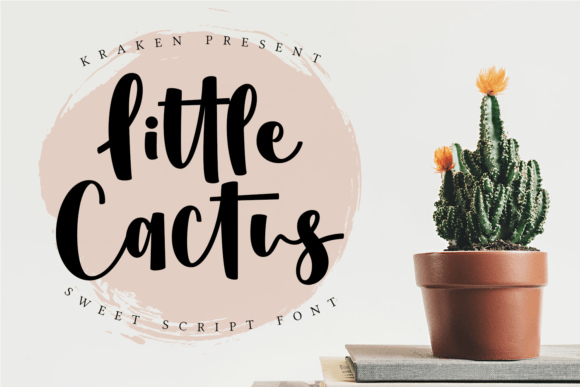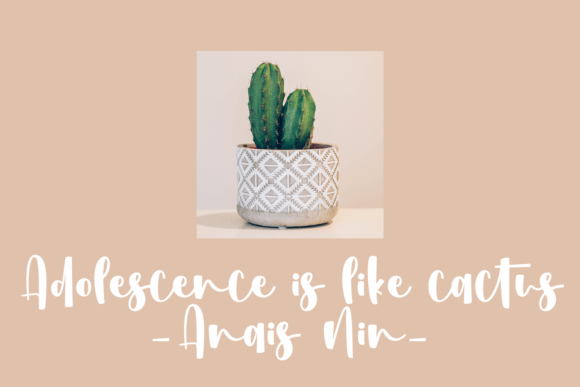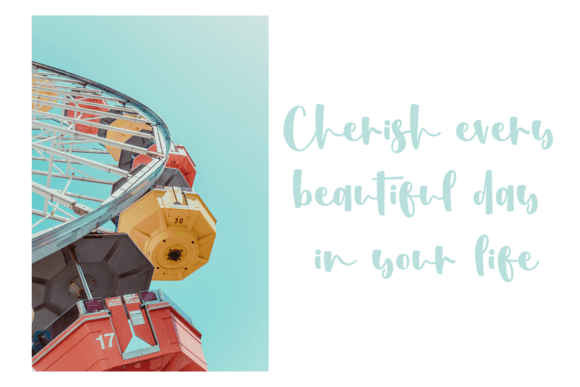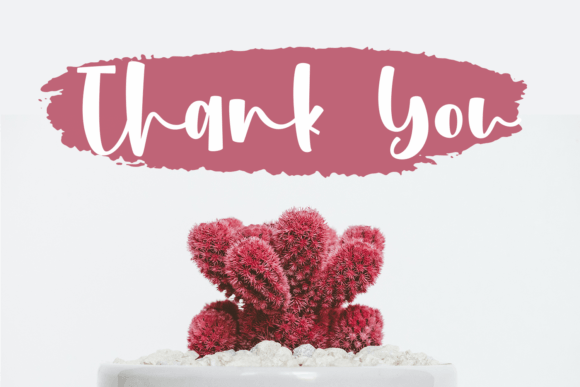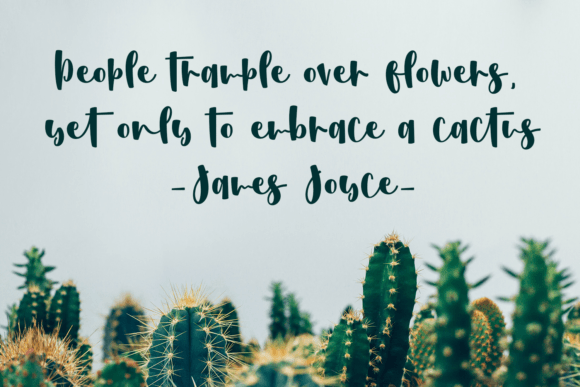
Little Cactus Font
“Little Cactus” is more than just a font; it’s a fun and friendly handwritten typeface that brings a modern yet whimsical style to your designs. With its unique charm, this font has the power to immerse your creations into a magical world, adding a touch of playfulness and creativity.
The fun and friendly nature of “Little Cactus” is immediately apparent in its handwritten style. Each character carries a sense of whimsy, making it a delightful choice for a variety of design projects. Whether used in digital graphics, print materials, or any other creative endeavor, “Little Cactus” infuses a playful spirit into your designs.
The modern yet whimsical style of this font makes it a versatile choice for diverse applications. Imagine “Little Cactus” on children’s book covers, creating a magical and inviting atmosphere for young readers. Picture it in social media graphics, where its friendly appeal adds a delightful touch to your posts.
The uniqueness of “Little Cactus” lies in its ability to add character and personality to your designs. It becomes a visual storyteller, turning each project into a journey into a magical world. Its whimsical charm makes it suitable for projects that seek to evoke feelings of joy, creativity, and imagination.
In summary, “Little Cactus” is a font that goes beyond mere type; it’s a creative tool that transports your designs into a magical realm. Let it be the choice that infuses your creations with a sense of playfulness and wonder. With “Little Cactus,” every project becomes an opportunity to create designs that are not only visually appealing but also carry a touch of magic.